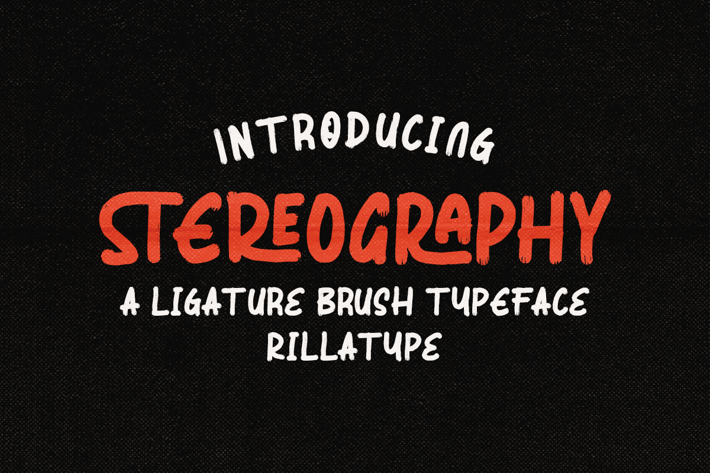
Stereography - Ligature Brush Typeface
Introducing, Stereography, a handwritten ligature brush typeface. this typeface is created carefully to make this font stand out with it's ligature feature and brush texture. on top of that, this font have alternates character to make this font more attractive! This font is very suitable for logo, headline title, tshirt, branding, packaging, etc.
+ numbers and punctuation
+ multilingual
+ ligatures
+ alternates
+ swashes